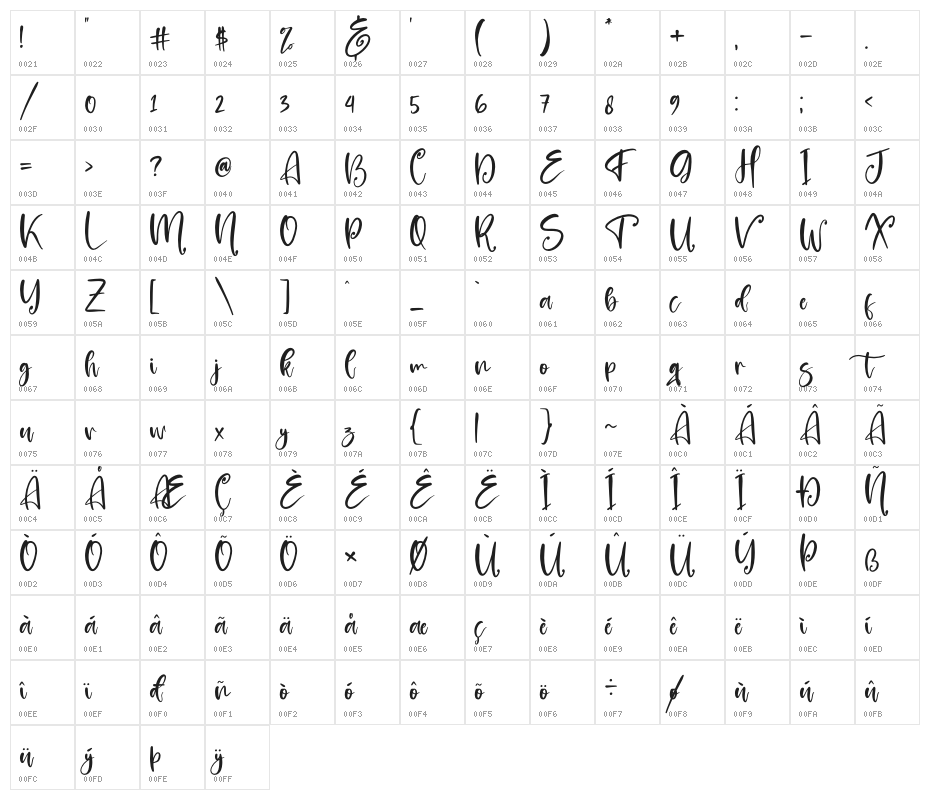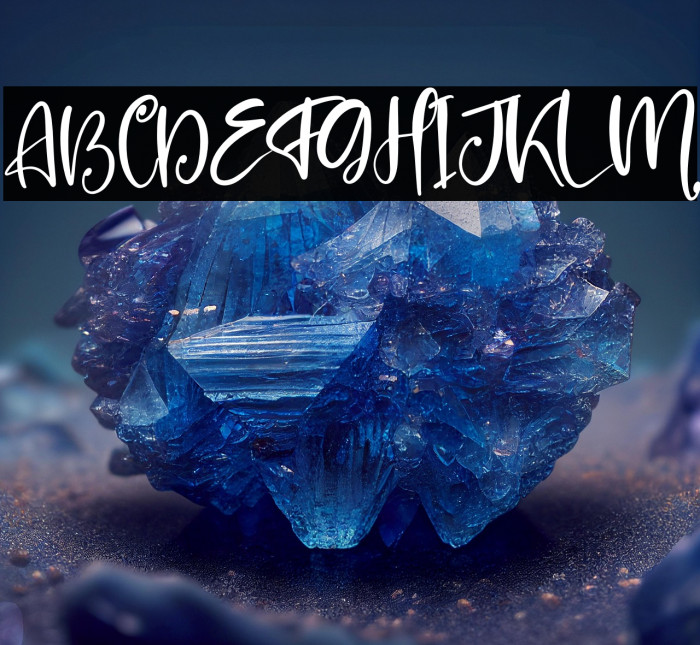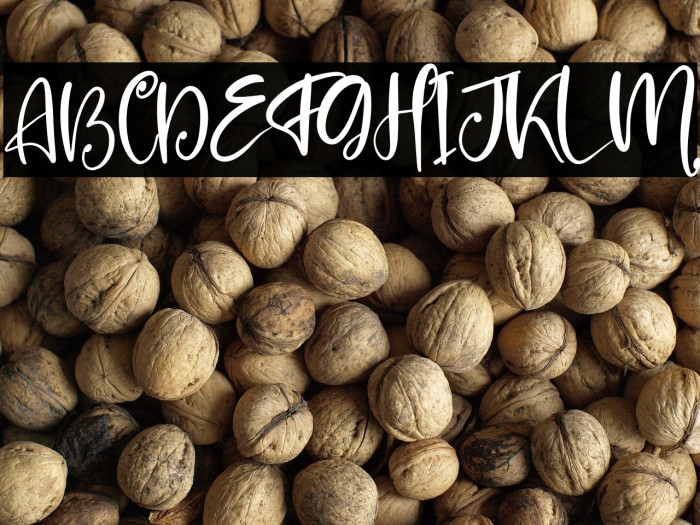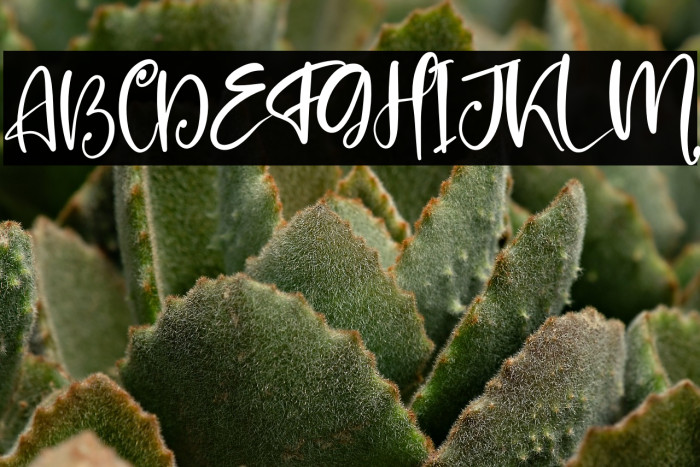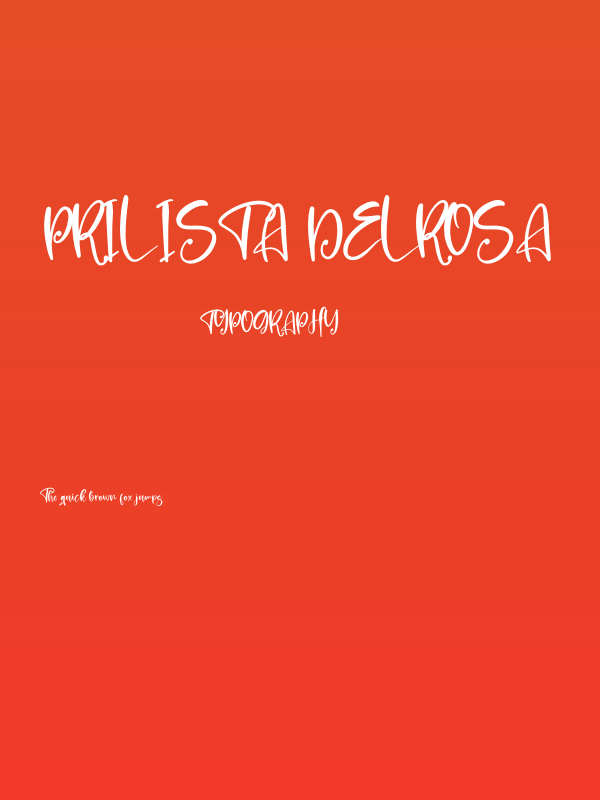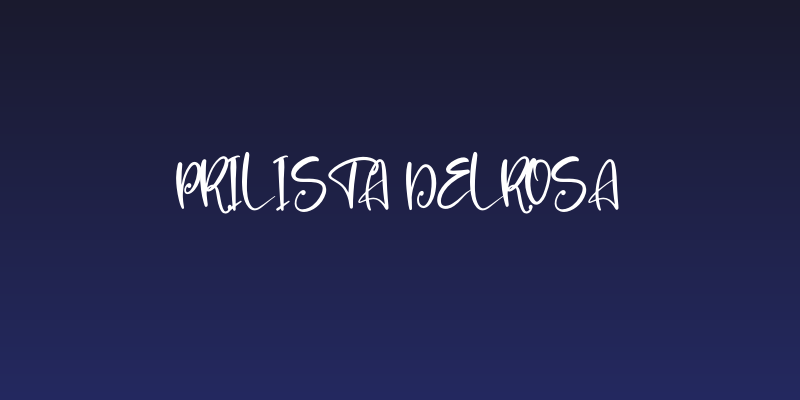
Prilista Delrosa Font
Prilista Delrosa Description
This font exudes a lively and expressive handwritten style, characterized by its fluid and dynamic strokes. The uppercase letters are bold and sweeping, with a playful yet elegant flair that captures attention. The lowercase letters maintain a consistent flow, enhancing the font's cohesive appearance. Numbers and special characters are crafted with the same artistic touch, ensuring versatility across various applications. The overall design is both modern and whimsical, making it suitable for creative projects that require a personal touch.
| Proposed Projects | Ideal for wedding invitations, greeting cards, branding projects, and social media graphics. |